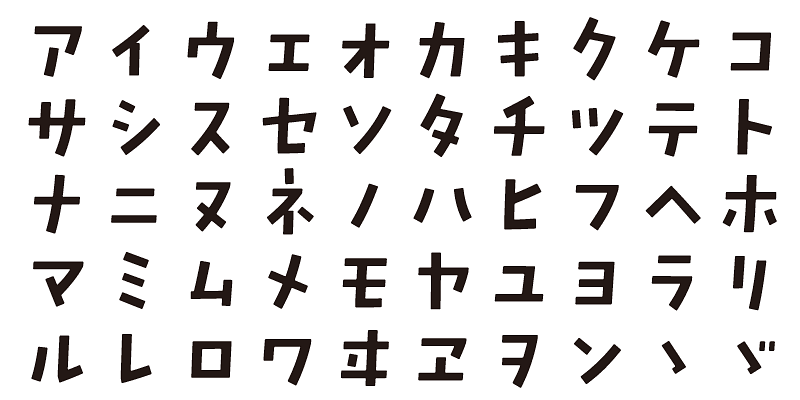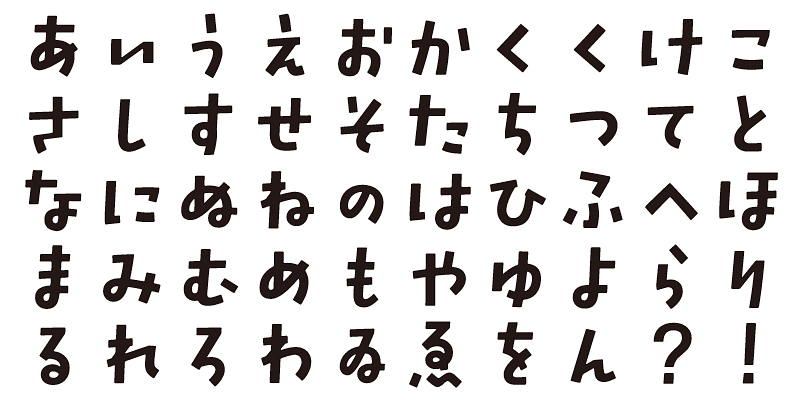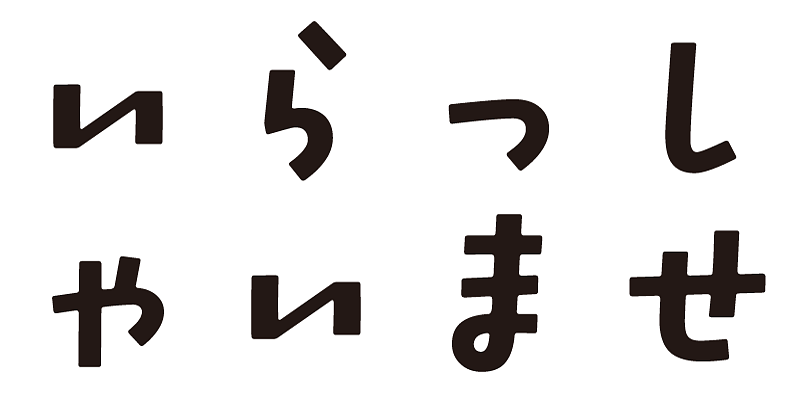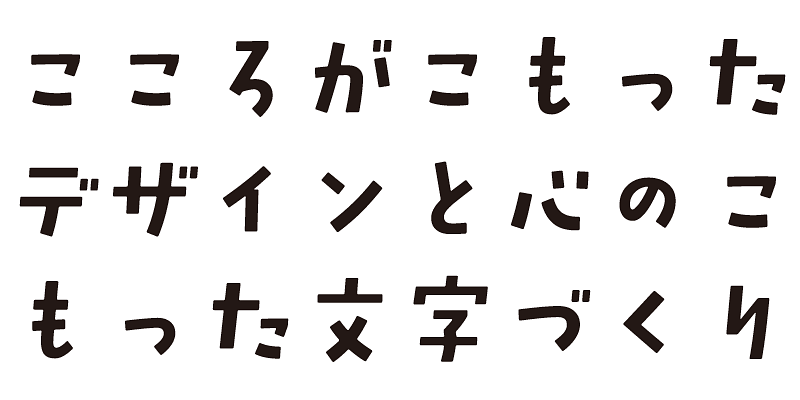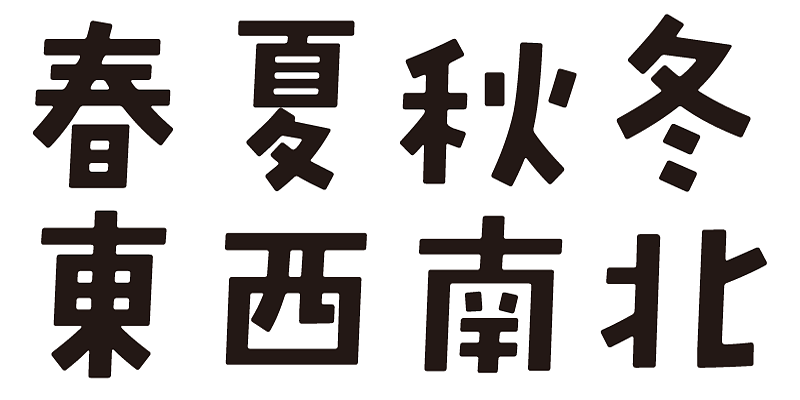
This typeface has an ordered and angular style, but it gives a bright and light atmosphere.
Each font in this typeface family includes 1,000 kanji characters, as well as hiragana, katakana, alphanumeric characters, and punctuation marks.
We design typefaces with the hope that they will add underlying meaning to words expressed. We wish the user to feel good and experience comfort and joy when using these typefaces.